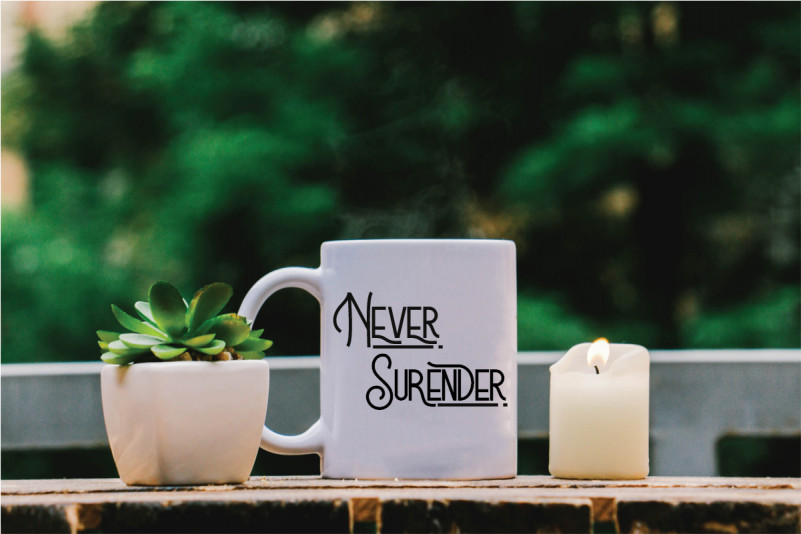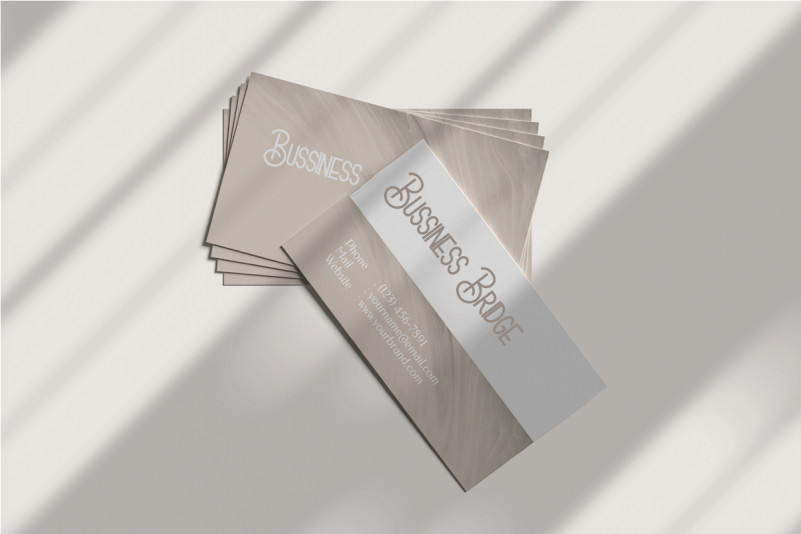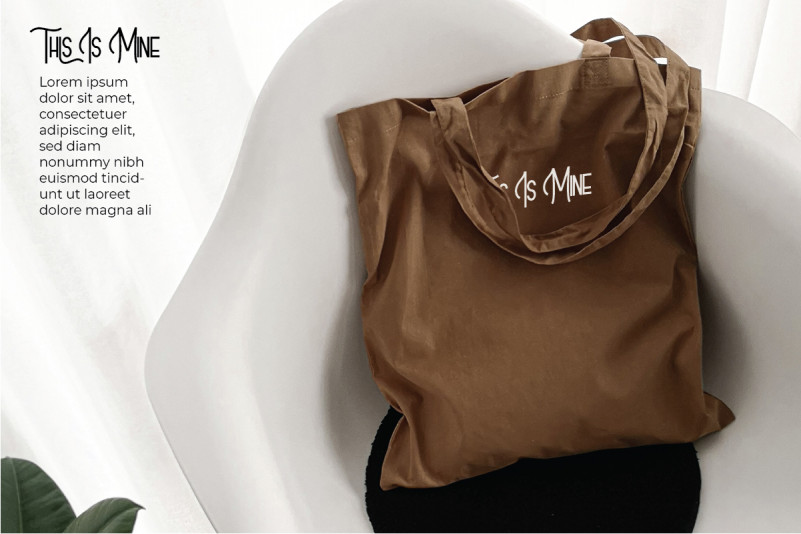
Bridgeville Font
Bridgeville Display Font
This is a vintage classic display font family. The style of this font are stylish, classic, elegant, vintage and strong brush font.